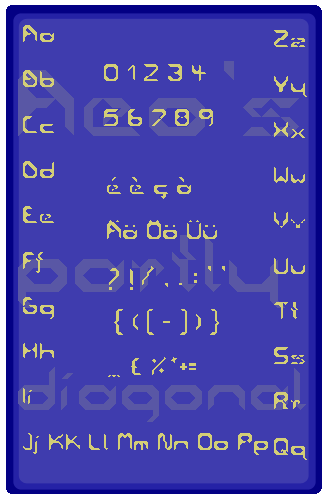
• My first 'small' font, it is an experimental for me but I think it is useable. I'm aware of different design elements in here (ex. on the e,s,y,H,R,...). I had to see how far I could get with a dot, a square and 4 corners. It will help me see how I can build smaller fonts. I'll get working on this soon, please comment to help me see solutions :)
Added accented letters and reduced spacing.
Added more European accented letters and currency, degree etc (symbols) and changed the name from 'Diagoness' to 'Spell Font' ;)